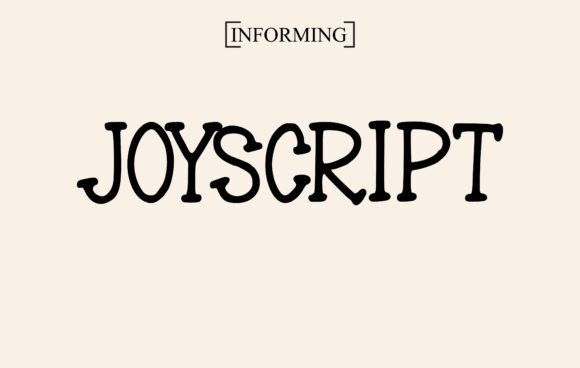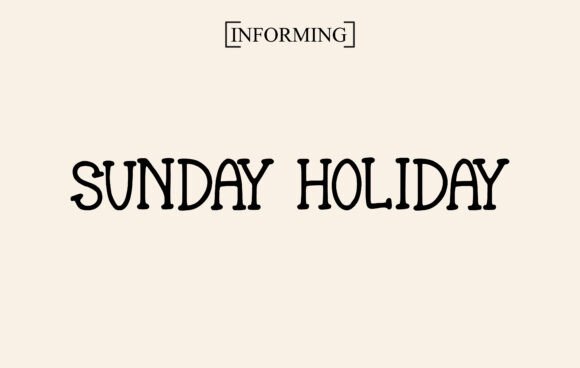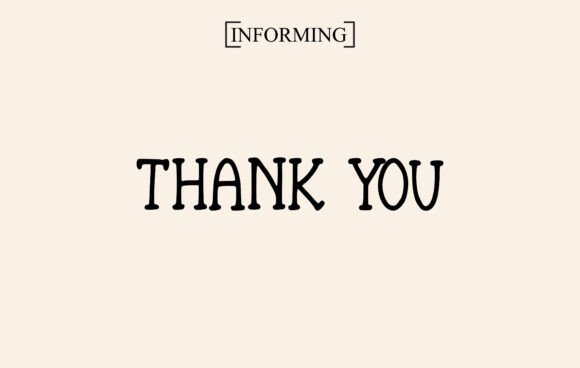
Joyscript Font
About the Joyscript Font
Unleash your creativity with Joyscript Font, a versatile font perfect for a wide range of applications. This font is designed to be a true favorite and it has the potential to take your creative ideas to the highest level
Joyscript’s friendly and slightly playful personality makes it ideal for headlines, short text blocks in branding materials, and playful packaging designs. It excels in applications where legibility isn’t paramount over visual impact, such as posters or social media graphics. However, its less-than-optimal x-height makes it unsuitable for extended body copy or UI elements requiring high readability.
For a balanced aesthetic, pair Joyscript with a clean sans-serif like Lato for a modern feel, or a classic serif such as Garamond for a touch of timeless elegance. Consider a geometric sans-serif like Futura for a bolder, more contemporary pairing. Avoid pairing it with other script fonts, as this can lead to visual confusion.
Its approachable, slightly whimsical style would suit brands targeting a younger demographic or those wishing to project a friendly, approachable image. Projects involving children’s products, lifestyle brands, or event promotions would benefit significantly from its charming character.
Joyscript Font Usage Examples
Joyscript Font Example